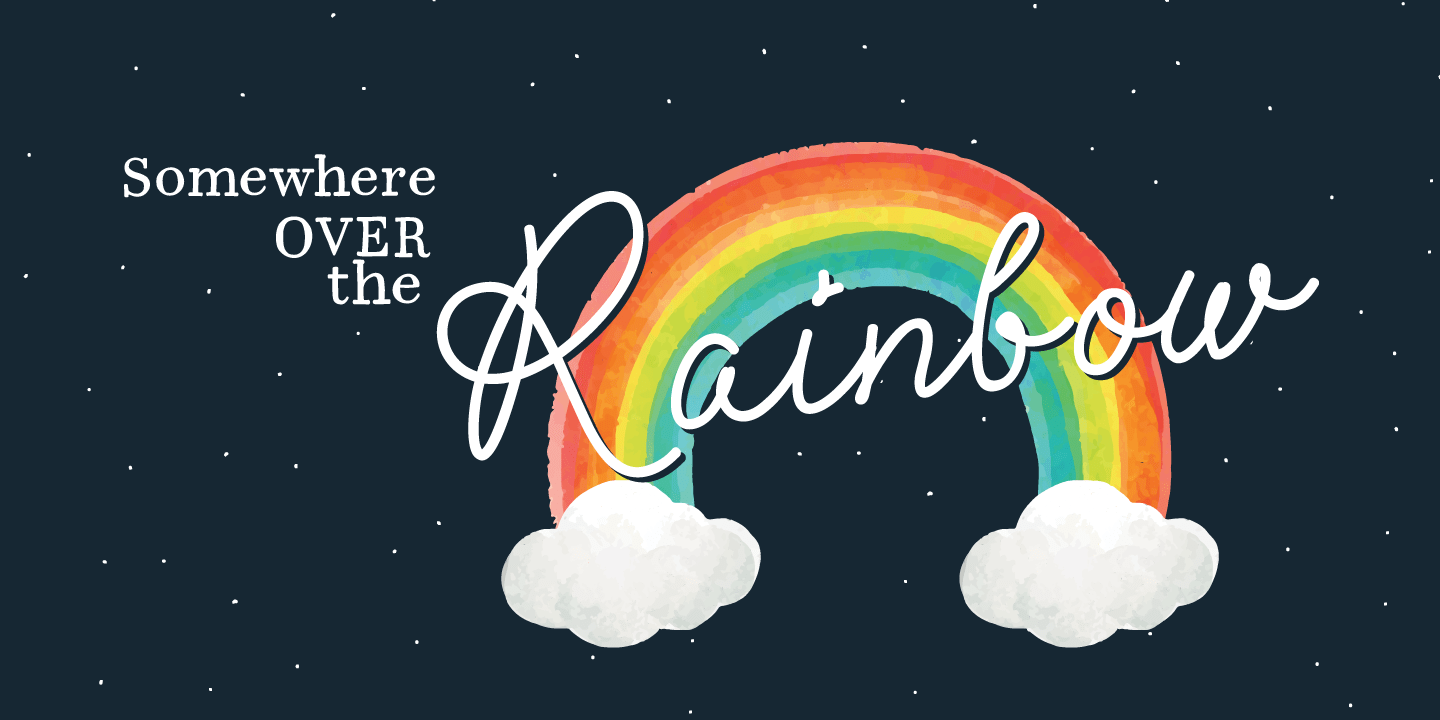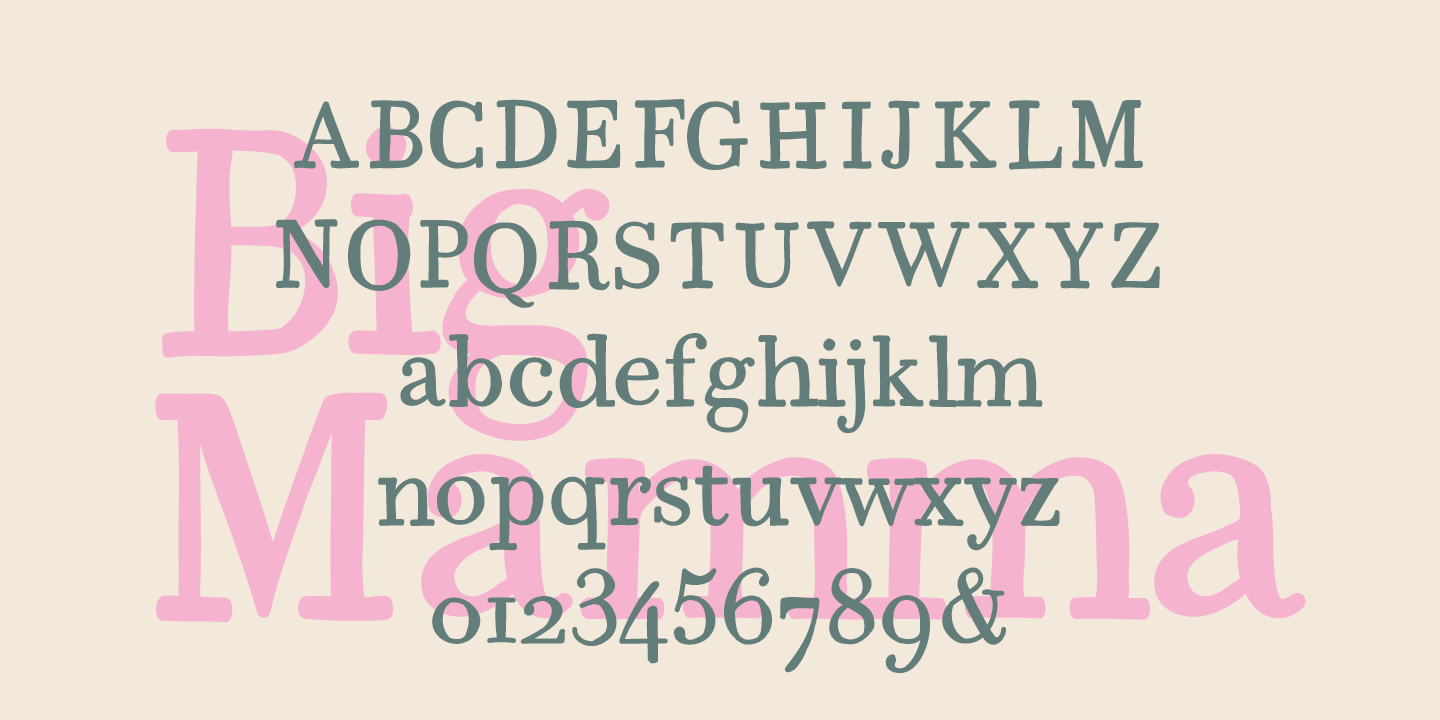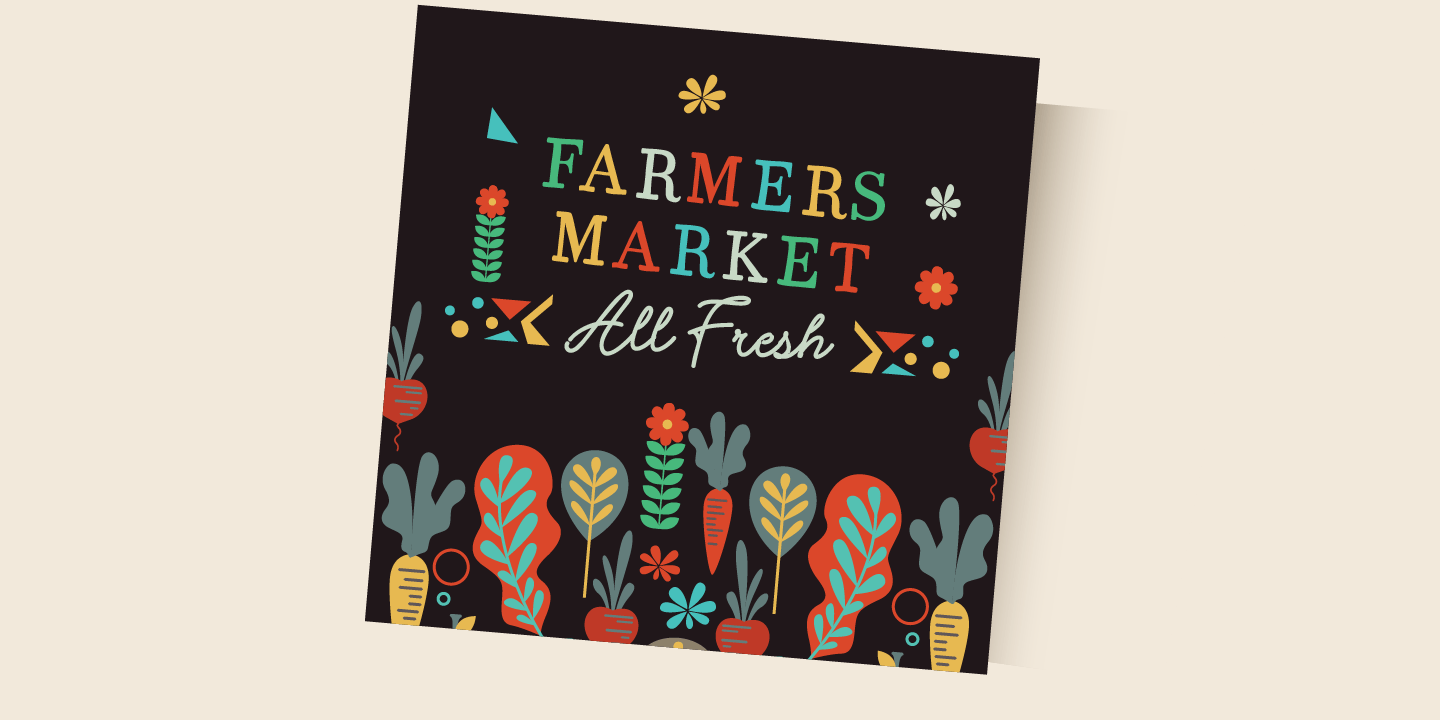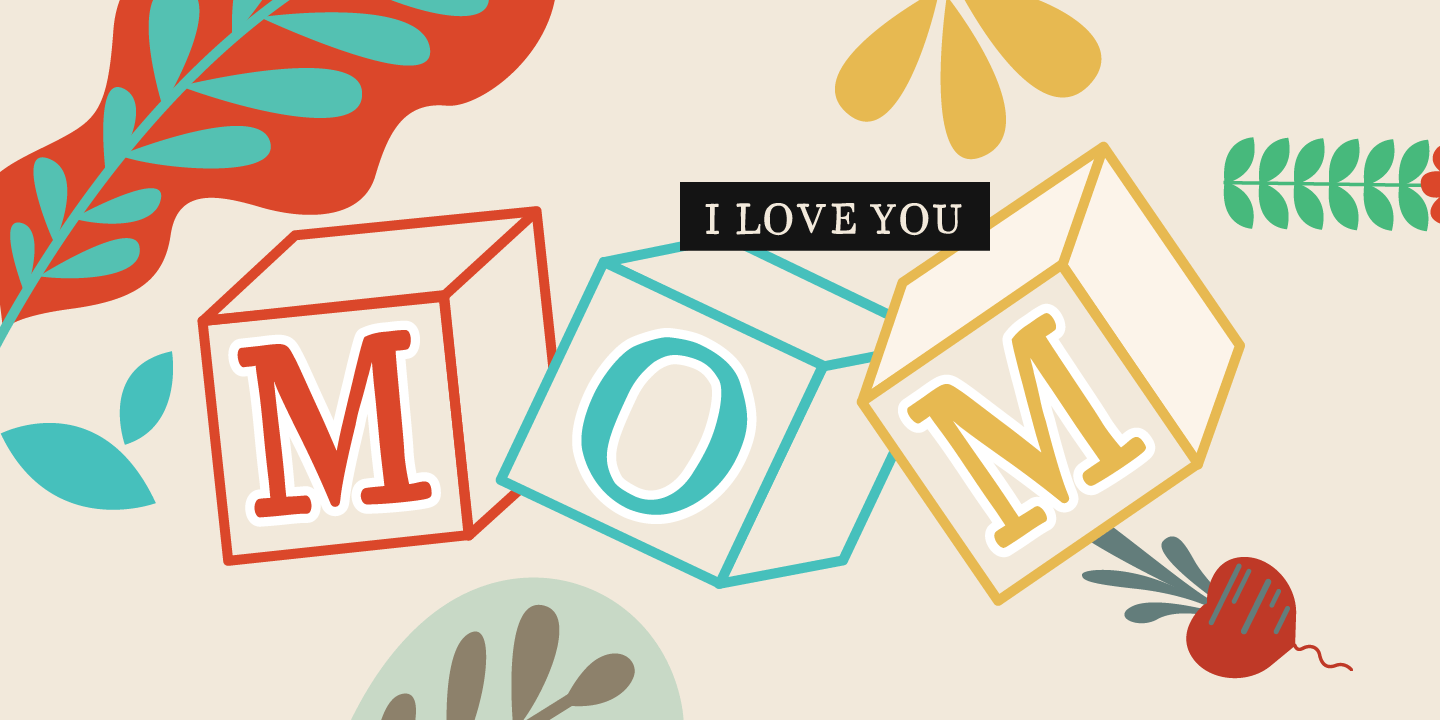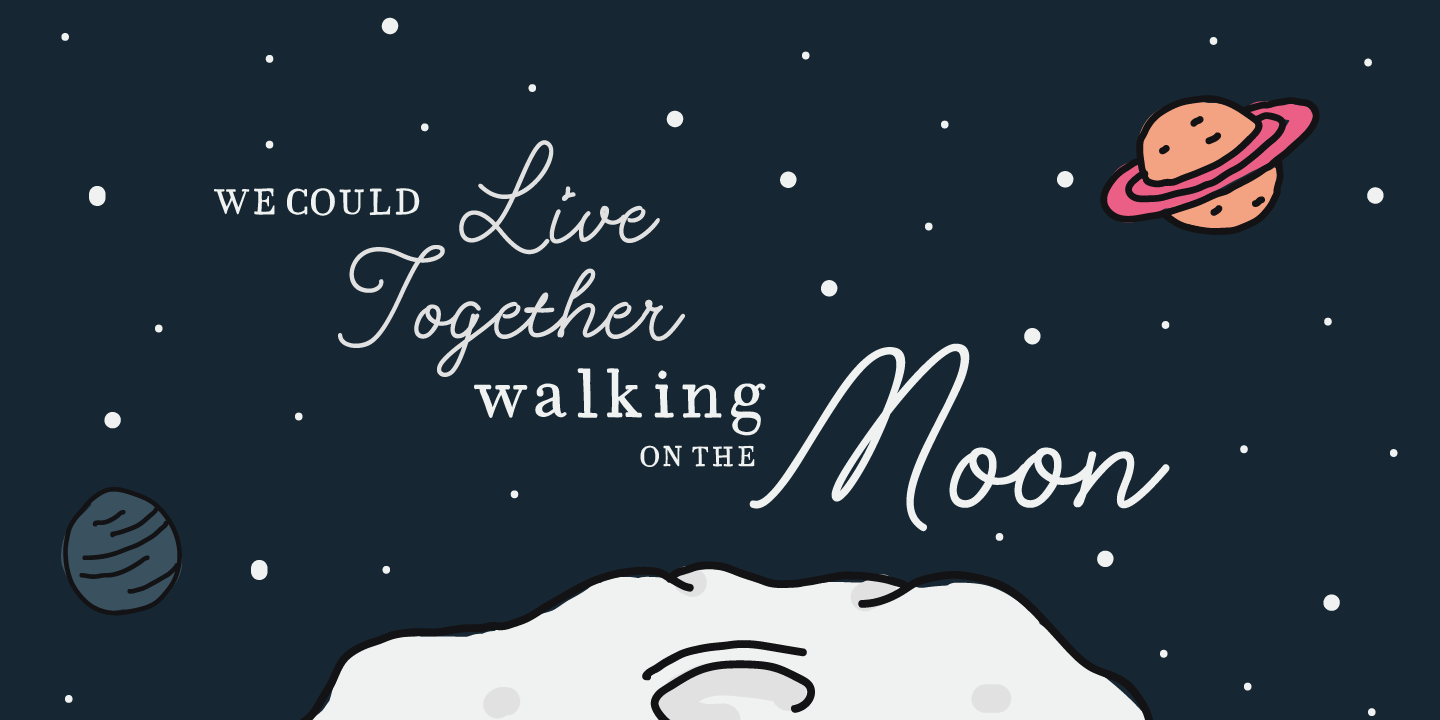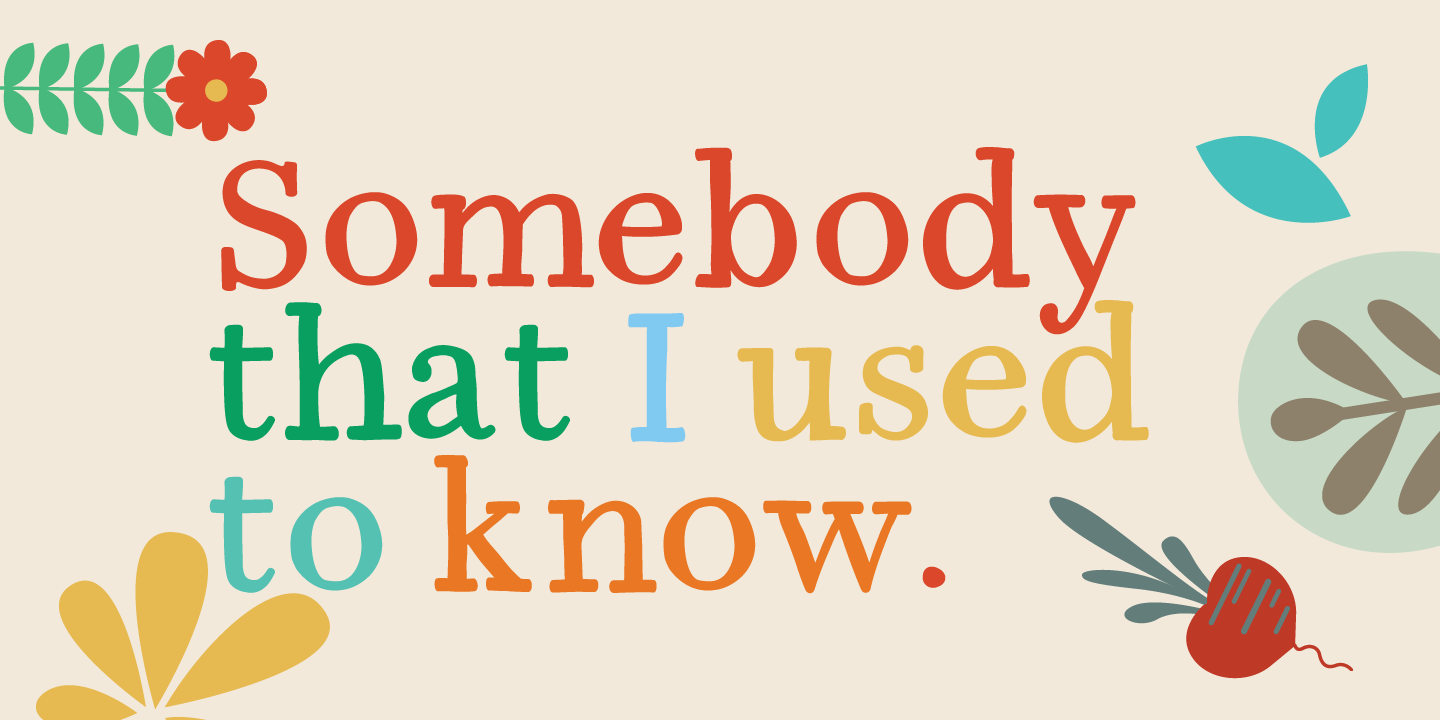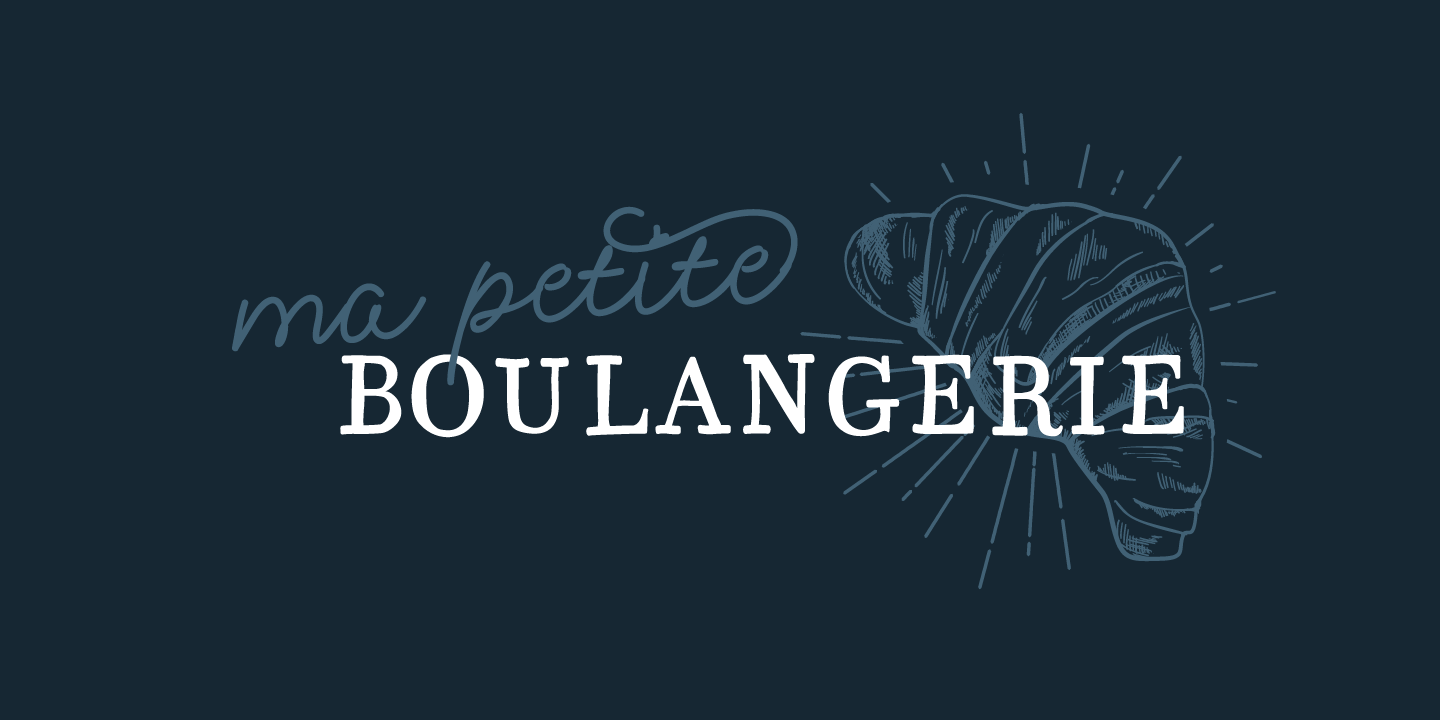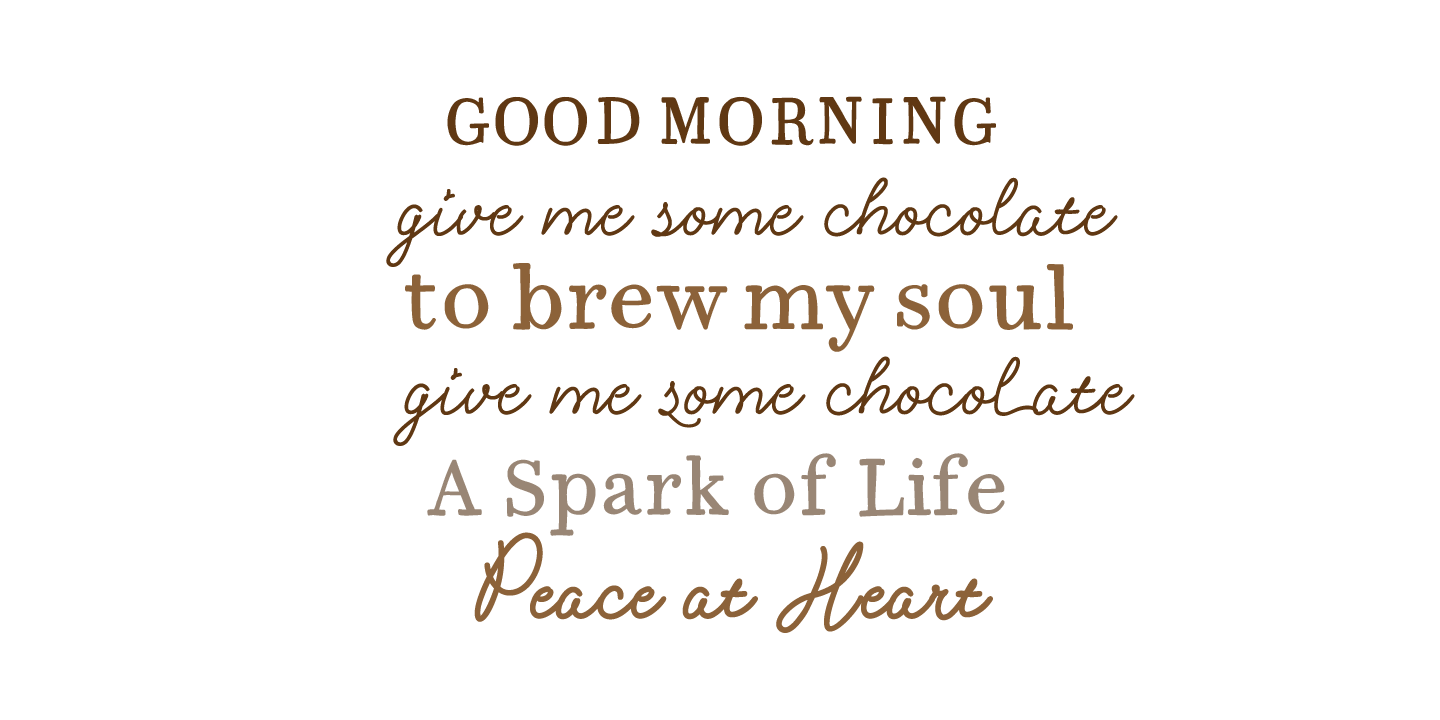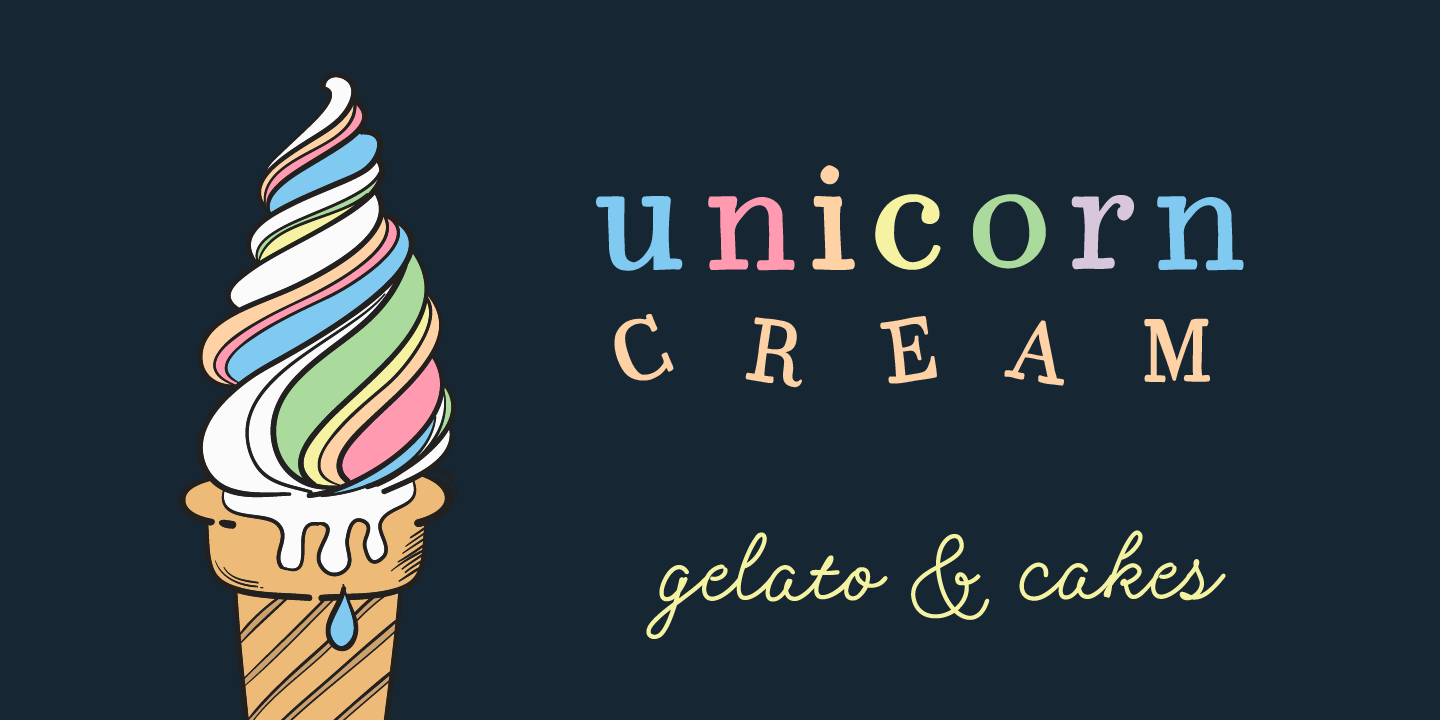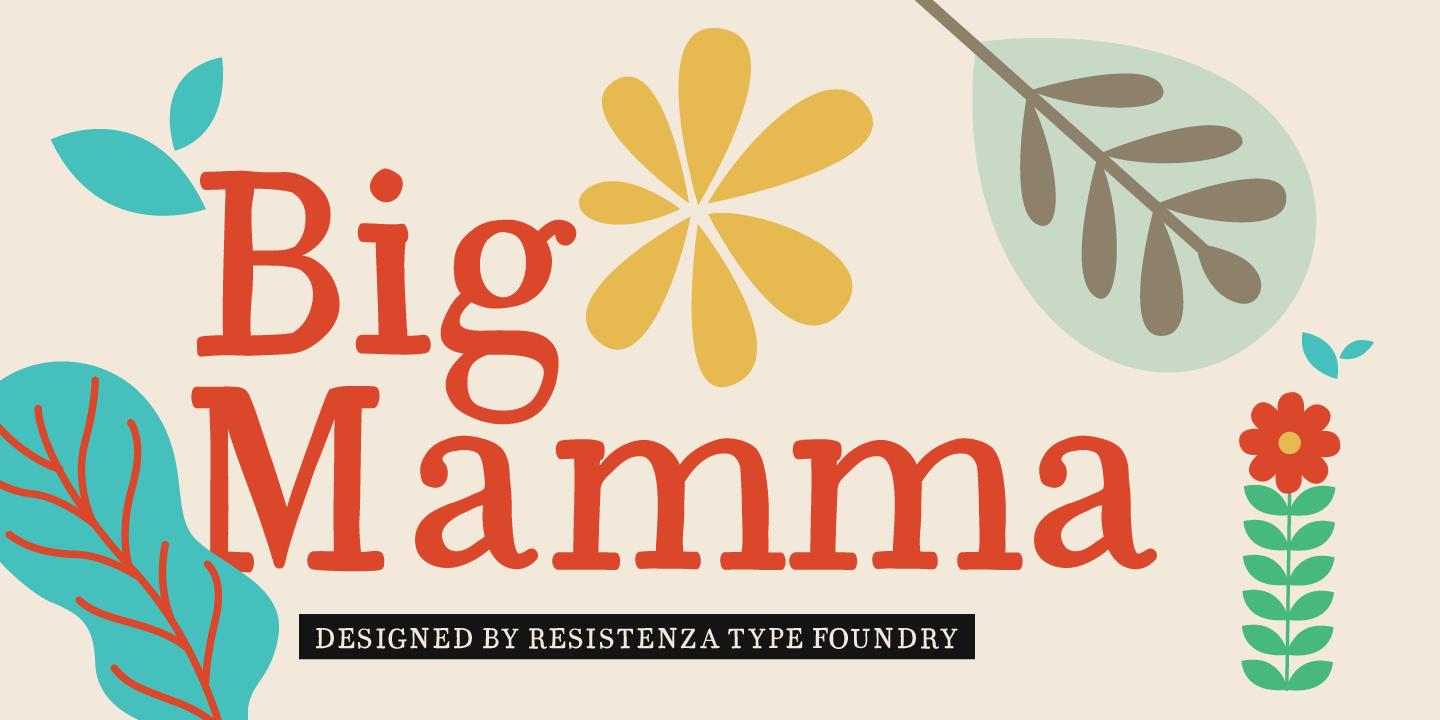
HomeFont BrosHandwrittenBig Mamma HandwrittenSerifNow on Sale! Big Mamma FacebookXPinterestWhatsApp 1 of 10 About Big Mamma Big Mamma, is a handrawn slab font for flexible purposes.  DOWNLOAD ON FONT BROSThis font is sold and delivered by Font Bros. Font Canyon may earn a commission if you buy through this link. People also explored Marble Pattern Font Haana Duo Font The Westview Sweet Butter Font Stelars Font Attalea Font Abigail Font Eberthany Brush Font Bertty Font 308 0 TagsBig Mamma Font Previous articleMuseo Sans CondensedNext articleDesmond LEAVE A REPLY Cancel reply Comment: Please enter your comment! Name:* Please enter your name here Email:* You have entered an incorrect email address! Please enter your email address here Website: Save my name, email, and website in this browser for the next time I comment. Personal Use Free Cottage Personal Use Free Read more about this font Crellia Script Personal Use Free Read more about this font Super Discount Personal Use Free Read more about this font Bukan Personal Use Free Read more about this font BLOG To increase your work productivity, choose the most readable fonts. In today's fast-paced work environment, where digital communication and information consumption are integral to our daily routines, the choice of fonts can significantly impact... 5 Fonts That Will Dominate Design Trends in 2026 Elegant Wedding Invitation Fonts – Handwritten & Script Fonts Exploring Font Trends